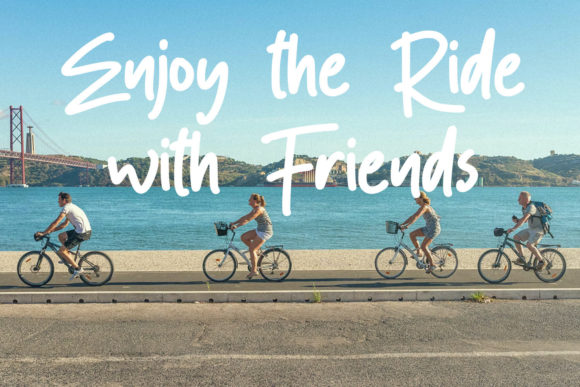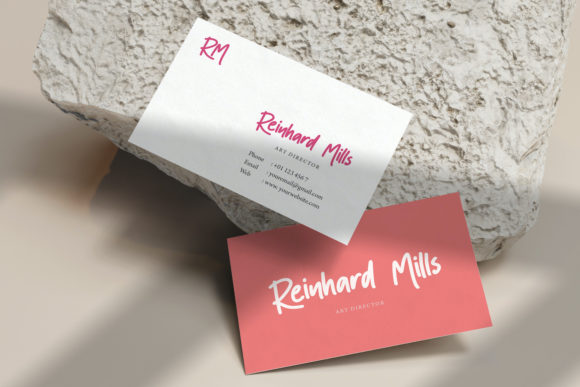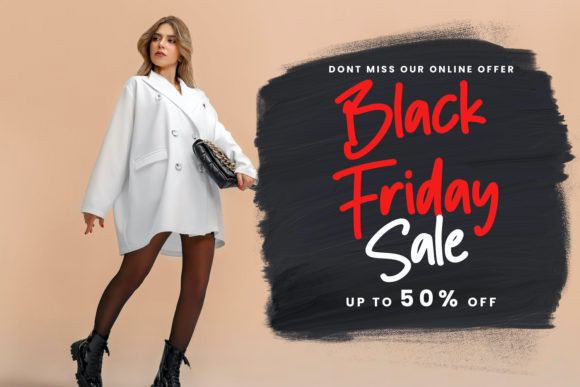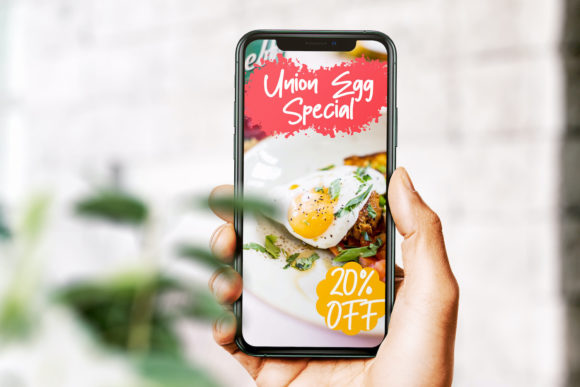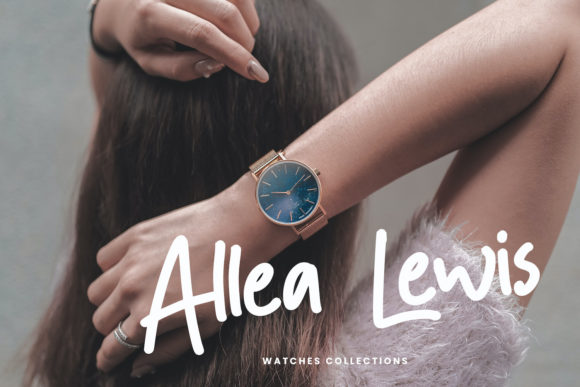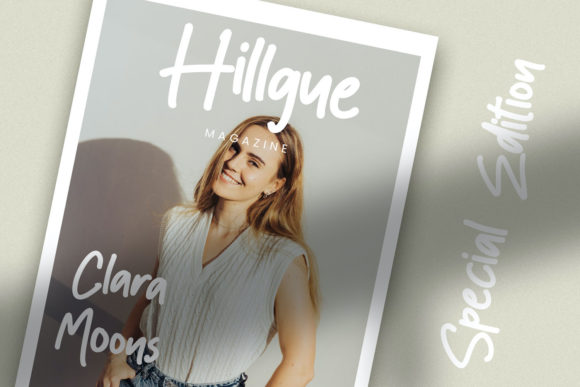
Introduction to Ronald Flick Font
Ronald Flick is a delicate, elegant, and free-flowing handwritten font.
Its beautiful and well-balanced characters make it the perfect match for a wide pool of designs Add it to your most creative ideas, and notice how it makes them come alive.
Key Features of Ronald Flick Font
Why Choose Ronald Flick Font?
Ronald Flick Font offers exceptional quality and versatility, making it a valuable addition to your design toolkit. Whether you’re creating for personal projects or commercial use, Ronald Flick Font delivers professional results.